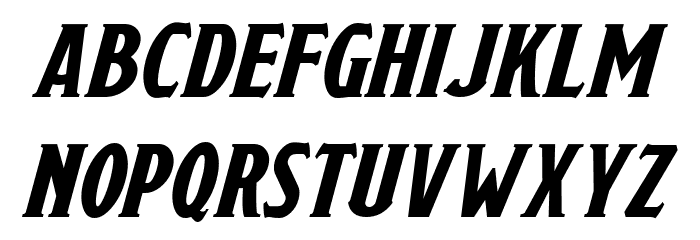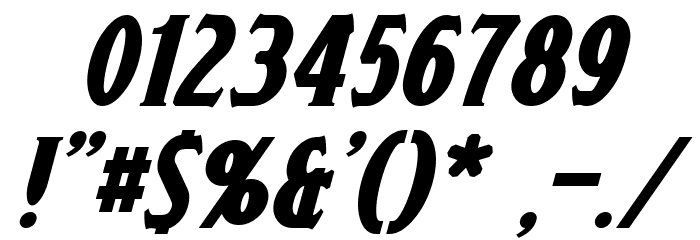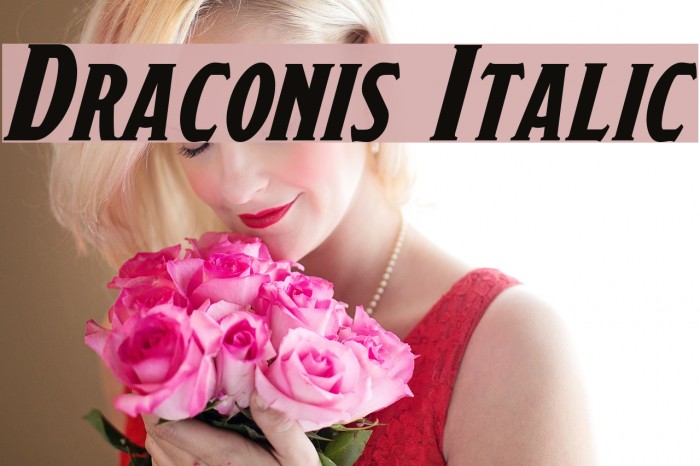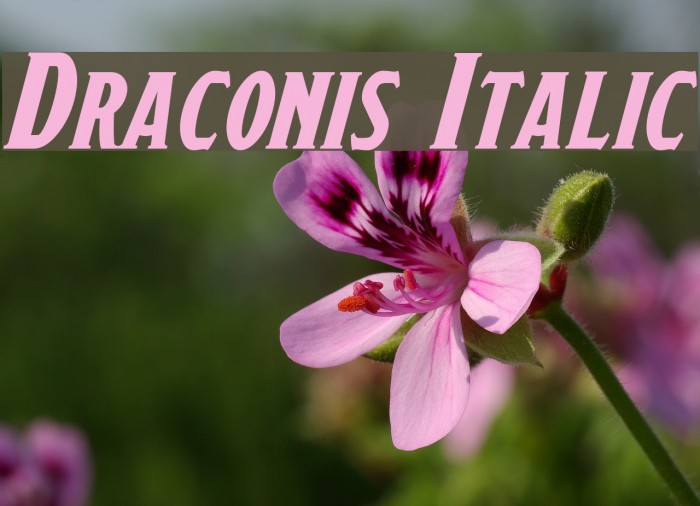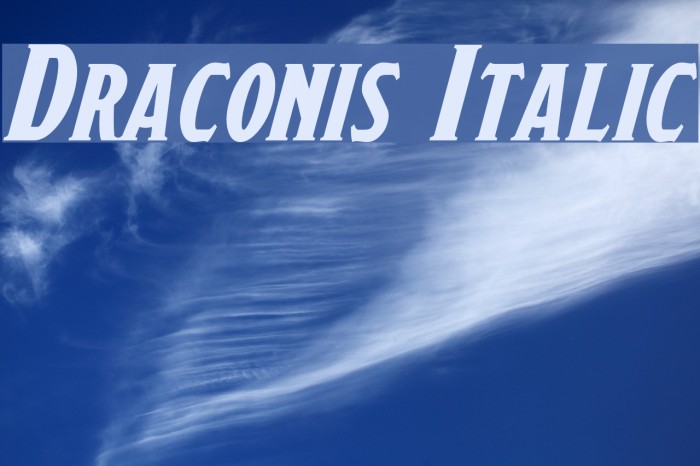
Draconis Italic Font
This font exhibits a bold and dynamic style with a pronounced italic slant, giving it a sense of movement and energy. The characters are robust and slightly condensed, with sharp, angular serifs that add a touch of aggression and assertiveness. The strokes are thick and consistent, providing a strong visual impact. The numbers and special characters maintain the same boldness and style, ensuring uniformity across all glyphs. This font is ideal for making a statement, capturing attention with its powerful presence.
A bold, italicized font with sharp serifs and a dynamic, energetic style.
- Proposed Projects: Ideal for sports branding, action movie posters, dynamic logos, and attention-grabbing headlines.